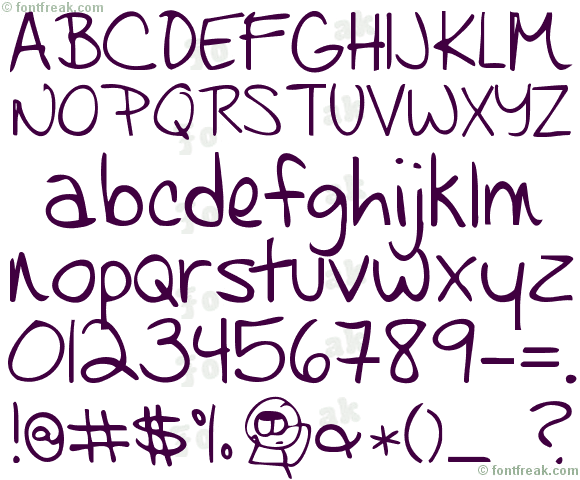
Learning to Trust
About Learning to Trust
The "Learning to Trust" font, designed by Kimberly Geswein, is a charming handwritten typeface that exudes warmth and approachability. This freeware font captures the essence of personal touch and is perfect for projects that demand a friendly and inviting aesthetic. The strokes are uneven, giving it an organic feel, while the medium weight and moderate contrast between the thick and thin lines add a playful character. The spacing is open, allowing for easy readability, making it suitable for both print and digital applications.
This font is versatile and can be effectively used across various contexts. It's ideal for crafting heartfelt wedding invitations that require a personal flair, or for designing children's book covers that need an engaging and friendly appearance. Additionally, it works wonderfully for restaurant menus, where a casual vibe can enhance the dining experience, and for social media graphics aimed at fostering community engagement. Small business owners can also leverage this font in branding materials, such as flyers and business cards, to create a memorable impression.
The target audience for the "Learning to Trust" font includes graphic designers seeking to infuse a personal touch into their projects, small business owners looking for a unique brand identity, and content creators who want to convey warmth and friendliness in their visuals.
What sets the "Learning to Trust" font apart is its ability to evoke a sense of familiarity and comfort. This makes it an excellent choice for any project that aims to build connections and trust with its audience. Don’t miss out on the opportunity to enhance your designs with this captivating typeface; the Learning to Trust font free download is available for those ready to elevate their creative work.